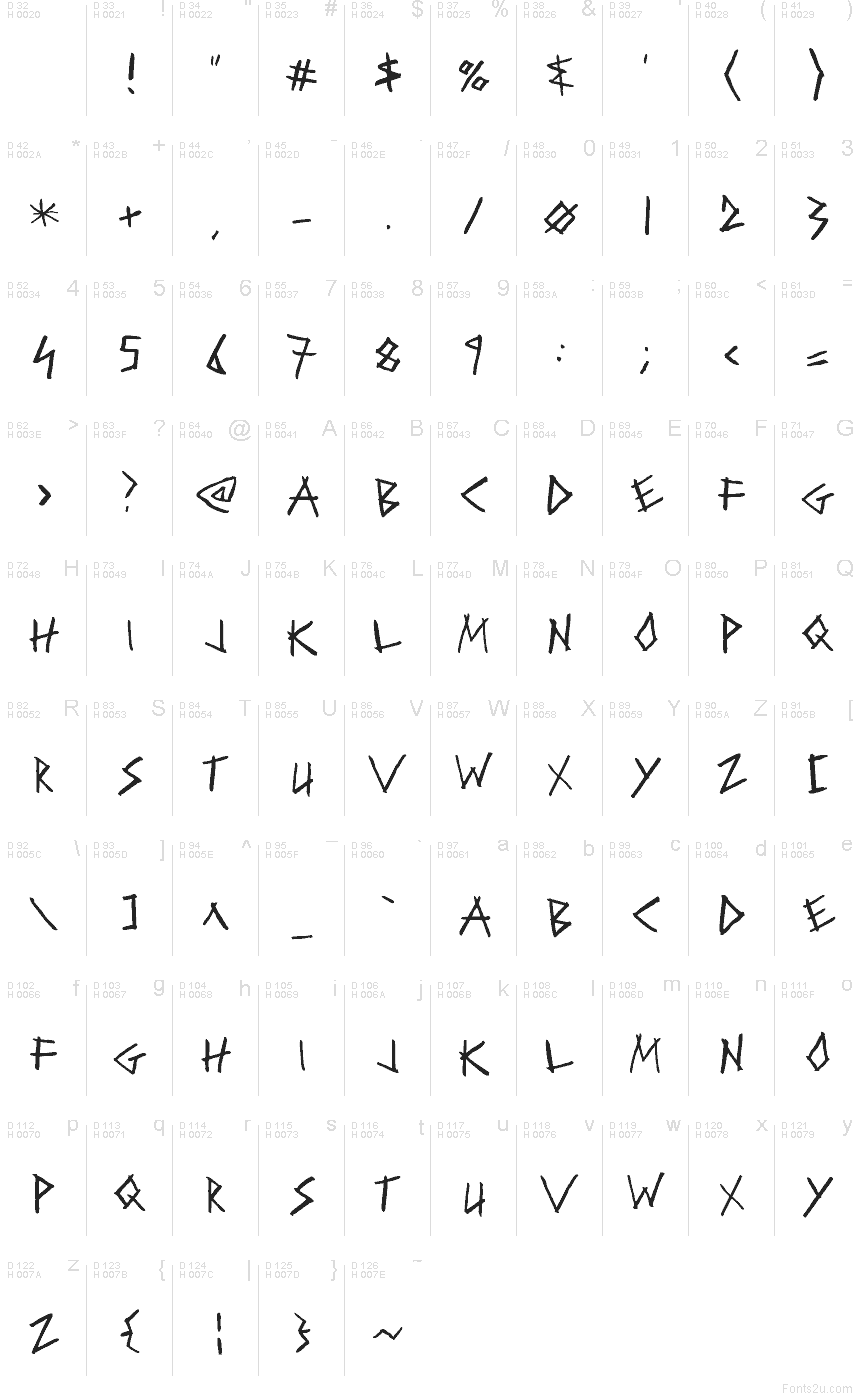
TC Scrawn Writes font by Type City Font Co is a free primitive display font that looks like it was scratched into stone by early hands still inventing language. The letters are sharp, uneven, and instinctive, formed from hacked lines and angular marks that feel carved, slashed, or daubed rather than written. Every character carries a raw, survivalist energy-as if the message mattered more than refinement.
Using TC Scrawn Writes gives your text a feral, ancestral rhythm that reads like warnings, rituals, or markings left behind in hostile places. This free font excels in caveman or barbarian-themed games, dungeon crawlers, horror titles, ancient curses, post-apocalyptic signage, and found-text storytelling where words feel discovered rather than designed. For contrast, pair it with a clean modern sans serif used sparingly, and let TC Scrawn Writes dominate at larger sizes where its primitive structure can fully snarl.